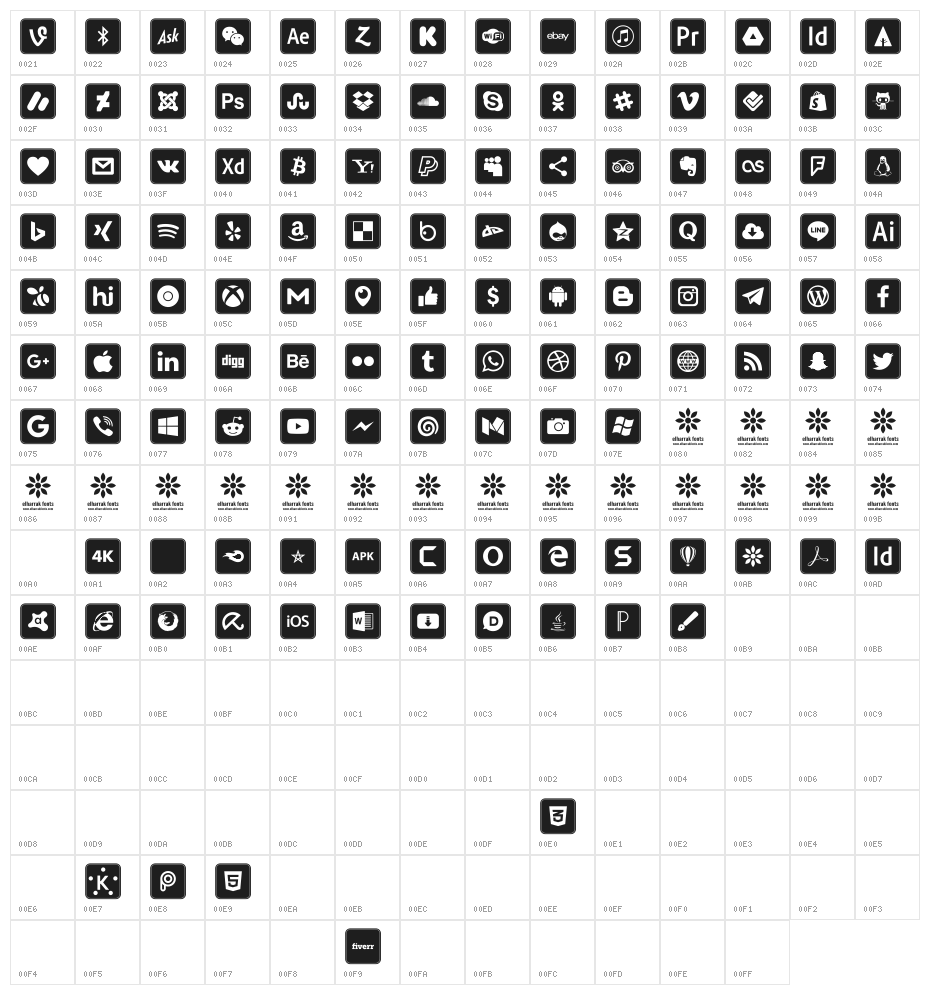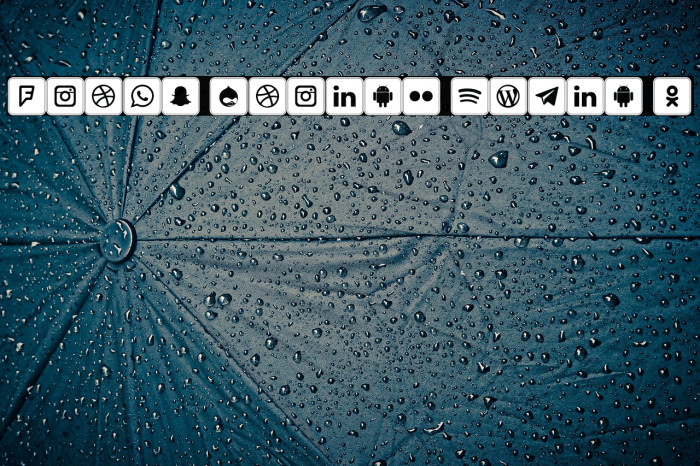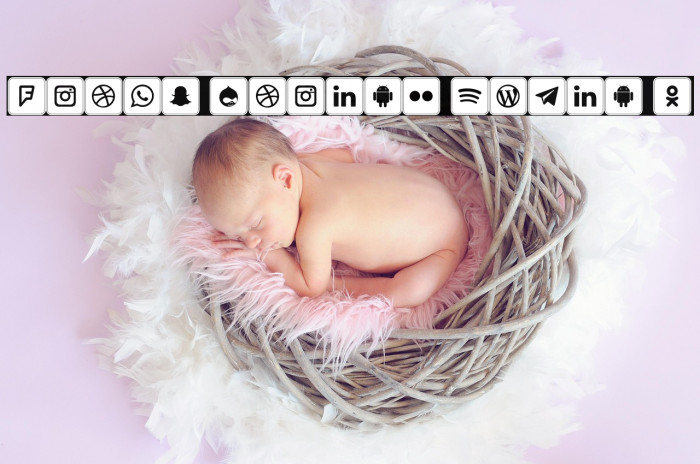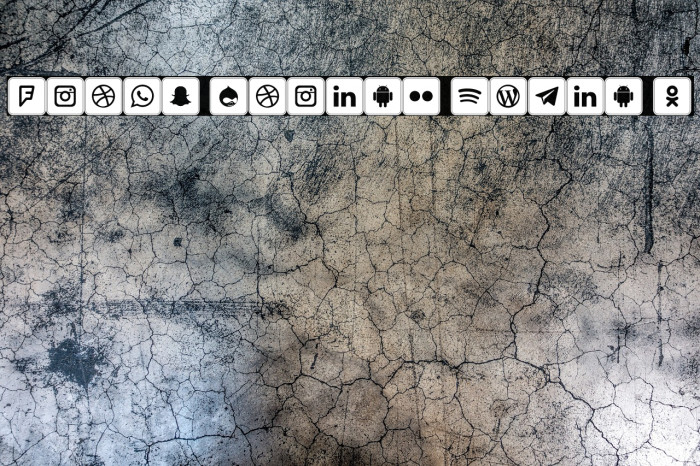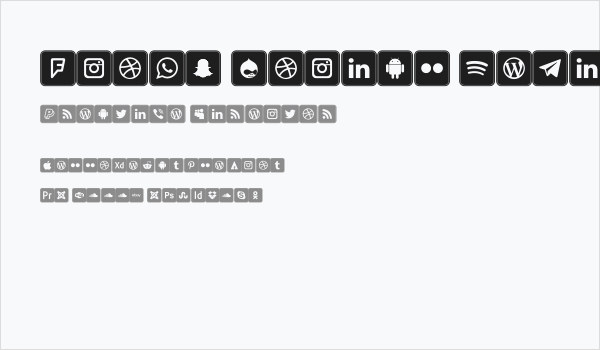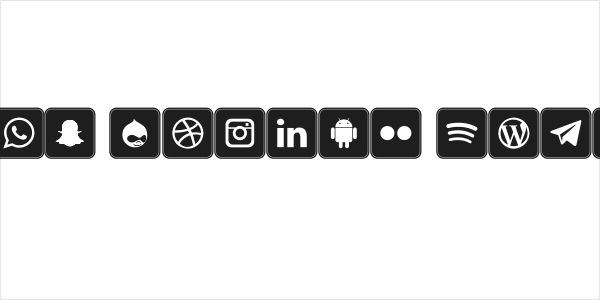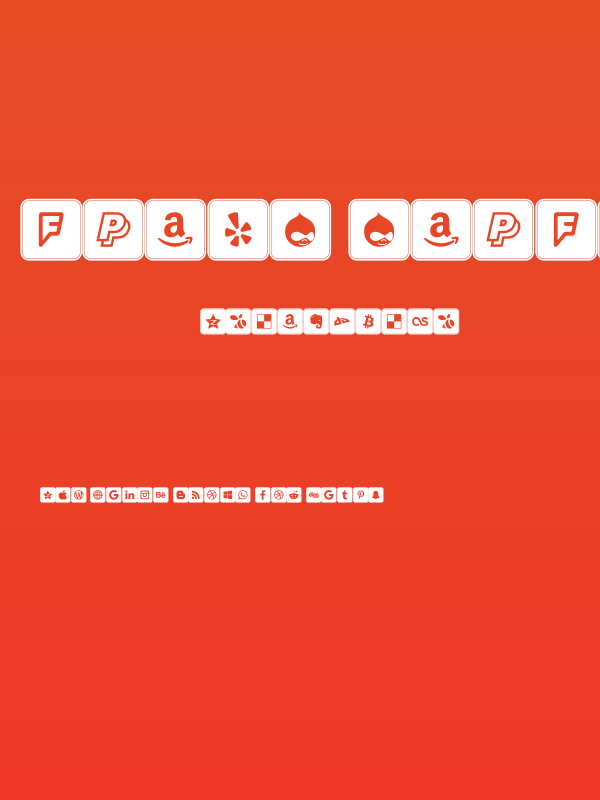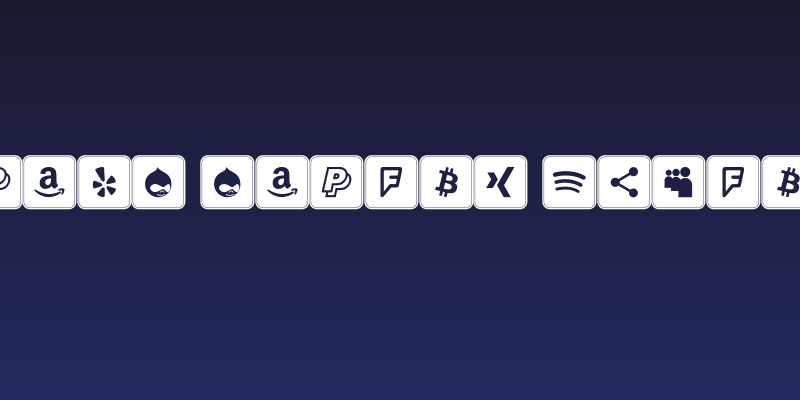
Icons Social Media 7 Font
Icons Social Media 7 Description
A set of monochrome, square social media and web service icons with rounded corners, featuring white pictograms centered on solid black backgrounds. The icons are consistent in size and style, with simple, bold linework and no gradients or shadows.
| Overall Style | Modern, Minimalist |
| Use Case | Icons, UI elements, navigation, branding collateral. |
| Proposed Projects | Websites, app interfaces, presentations, digital dashboards, print materials. |